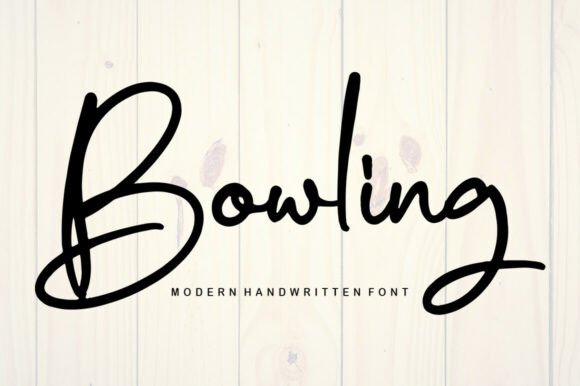
The Perfect Strike: Discovering the Charm of Bowling Font
I’ll never forget the time I was working on a wedding invitation project, and my client asked for a font that was “fun, yet elegant.” I scoured the internet, trying out font after font, but nothing seemed quite right. That was until I stumbled upon Bowling Font. This sweet and friendly handwritten font won me over with its fresh and neat vibe, and I knew immediately that it was the perfect fit for the project.
So, what makes Bowling Font so special? Here are a few things that I love:
- ✨ It’s incredibly versatile: Whether you’re designing wedding invitations, greeting cards, or social media graphics, Bowling Font adapts seamlessly to any design style.
- ✅ It’s easy on the eyes: The font’s clean lines and gentle curves make it a joy to read, even in smaller sizes.
- 🎉 It’s fun and playful: Bowling Font has a lighthearted, carefree vibe that’s perfect for adding a touch of whimsy to your designs.
Of course, no font is perfect, and Bowling Font has a few small quirks:
- 🤔 Limited multilingual support: While Bowling Font supports a range of languages, it may not be the best choice for projects that require more extensive language support.
- ⚠️ Some glyphs may require manual adjustment: Depending on the design, you may need to tweak certain glyphs to get the perfect fit.
The Story Behind Bowling Font
While the true origins of Bowling Font are shrouded in mystery, it’s said to have been inspired by the classic feel of vintage bowling alleys. The font’s creator aimed to capture the friendly, approachable spirit of a bygone era, and the result is a font that’s both nostalgic and fresh.
| Is Bowling Font suitable for body text? | While Bowling Font is primarily designed for display use, it can be used for body text in certain contexts. However, its readability may vary depending on the size and design. |